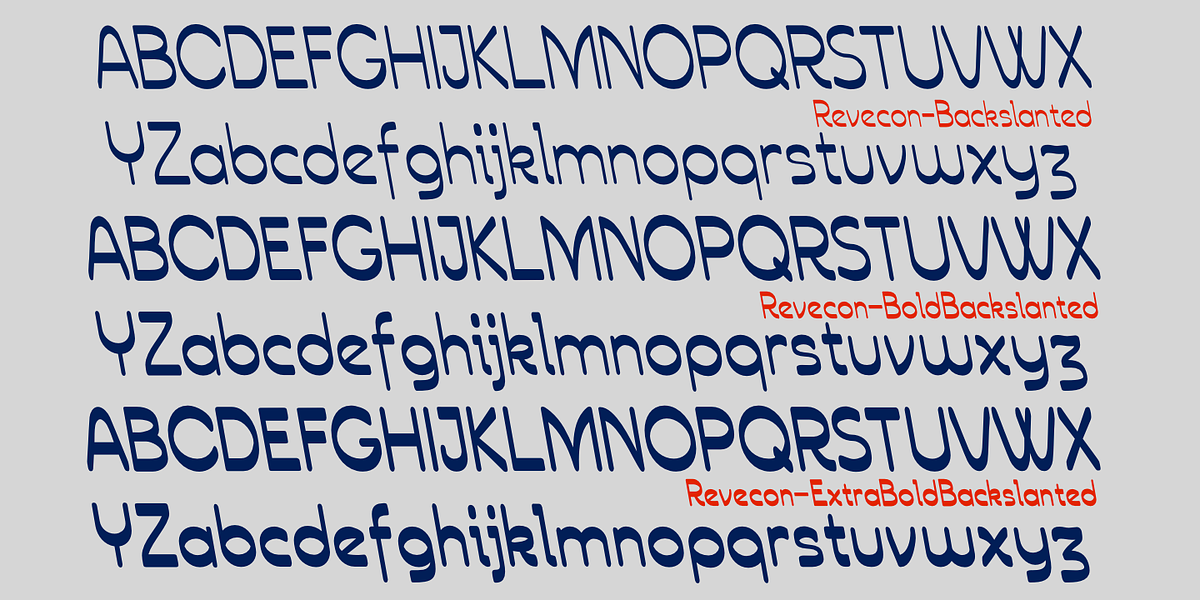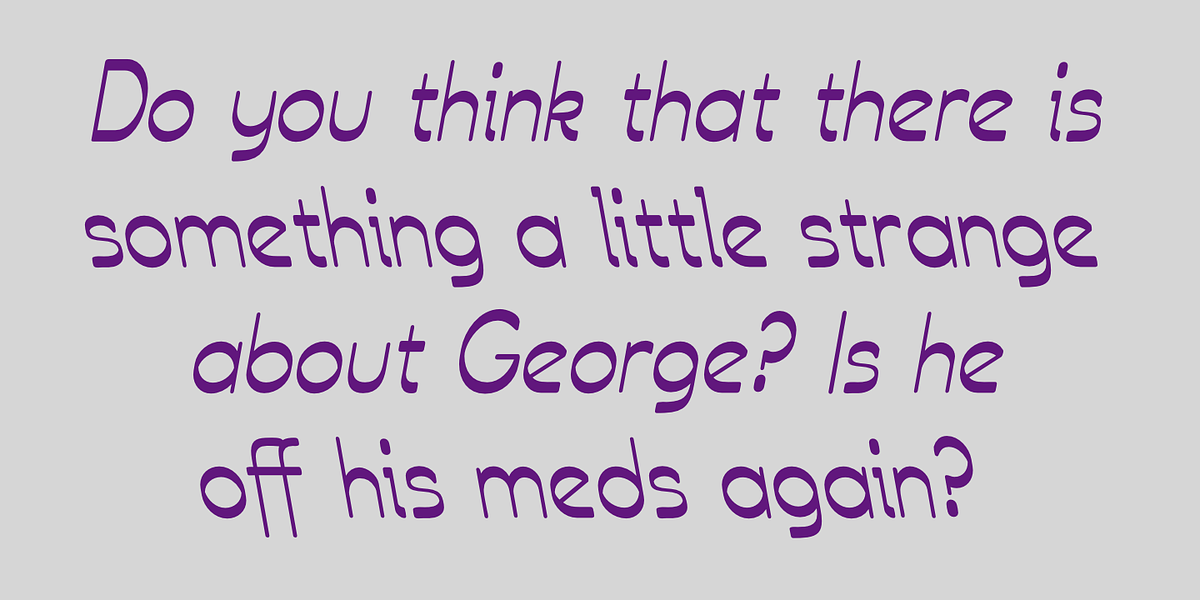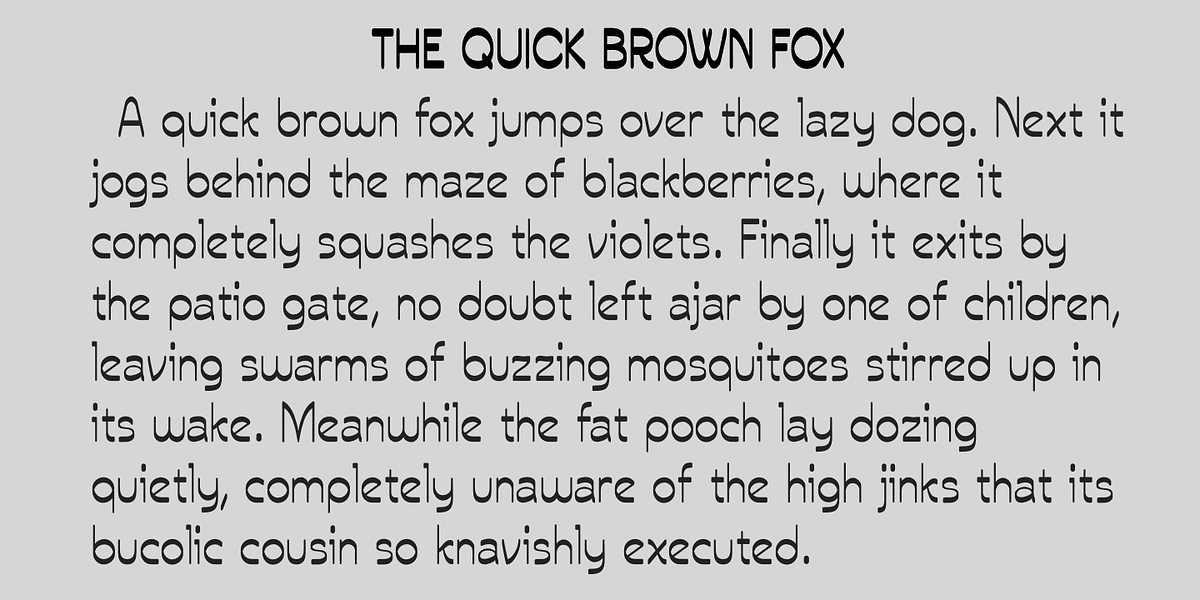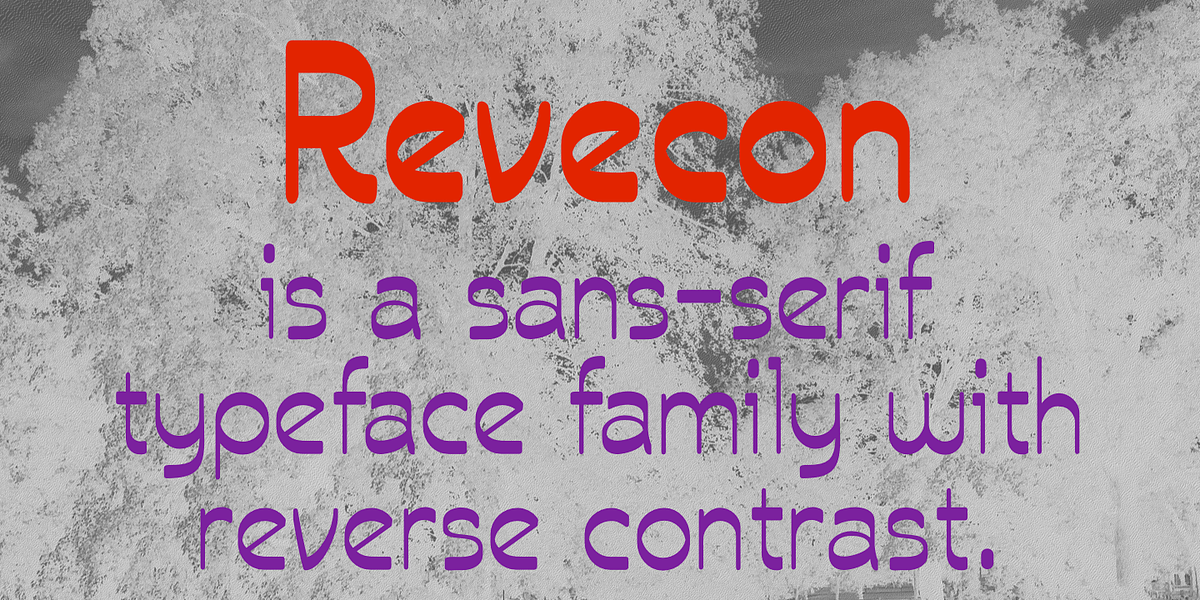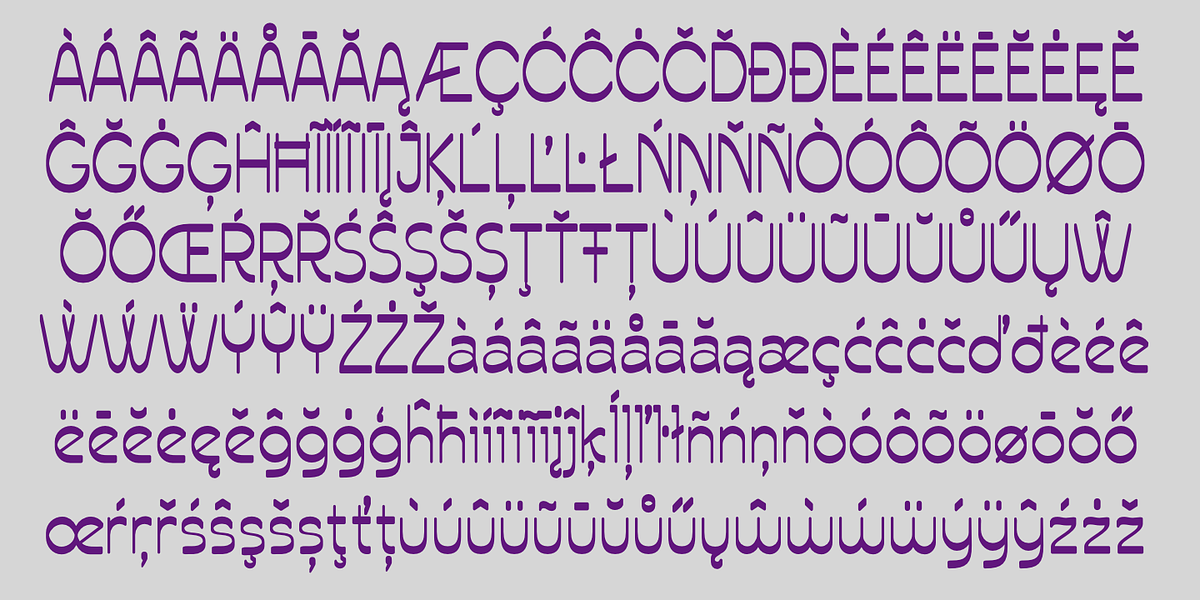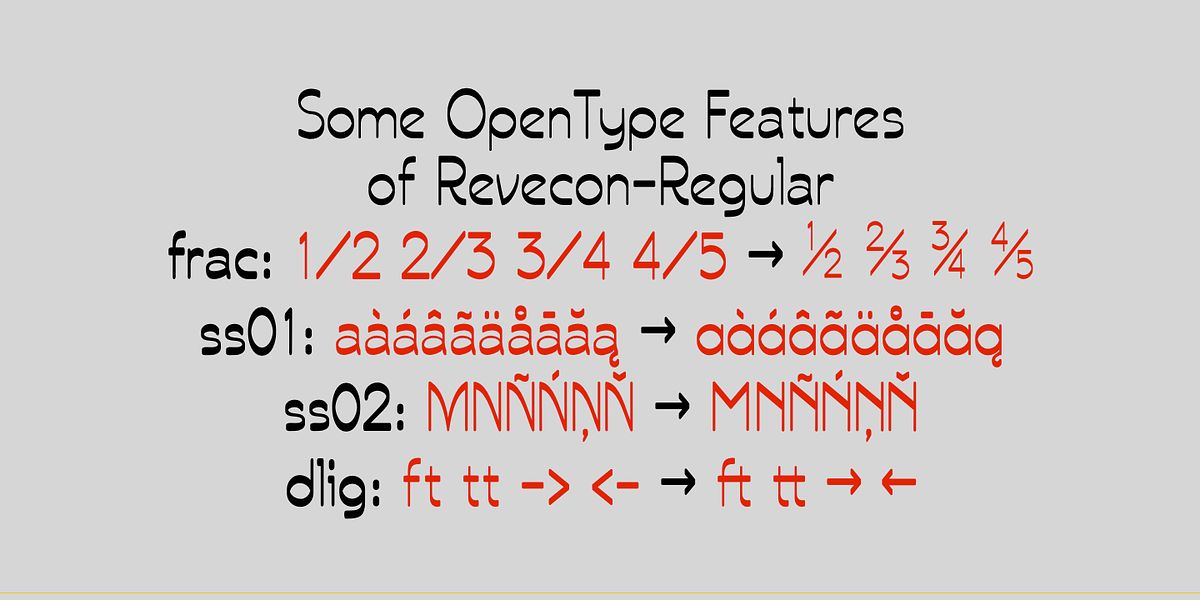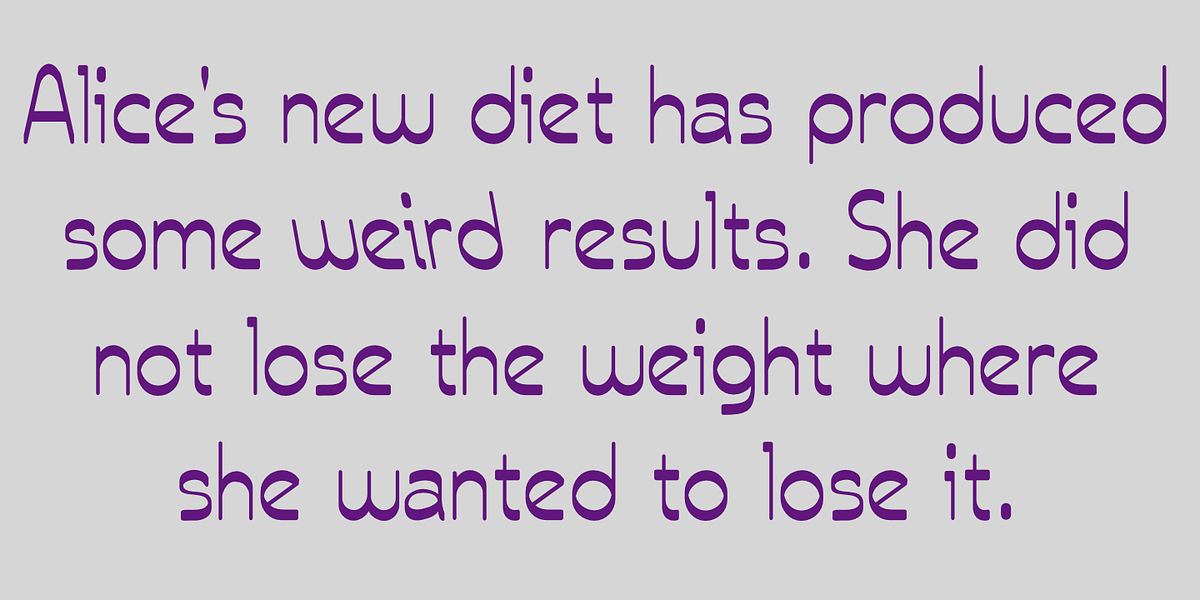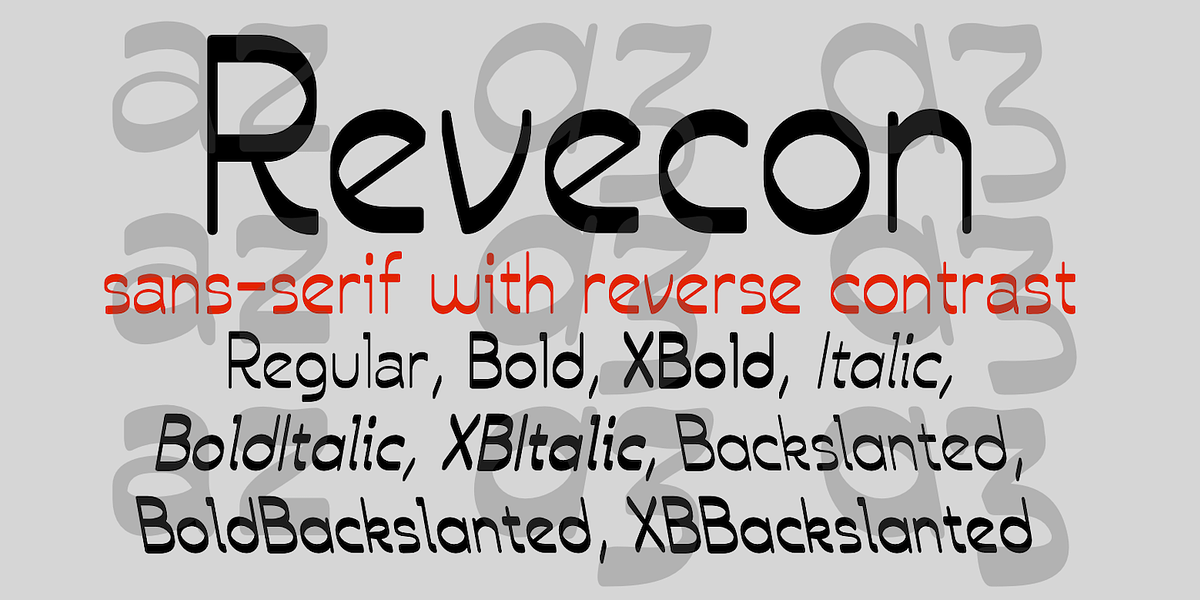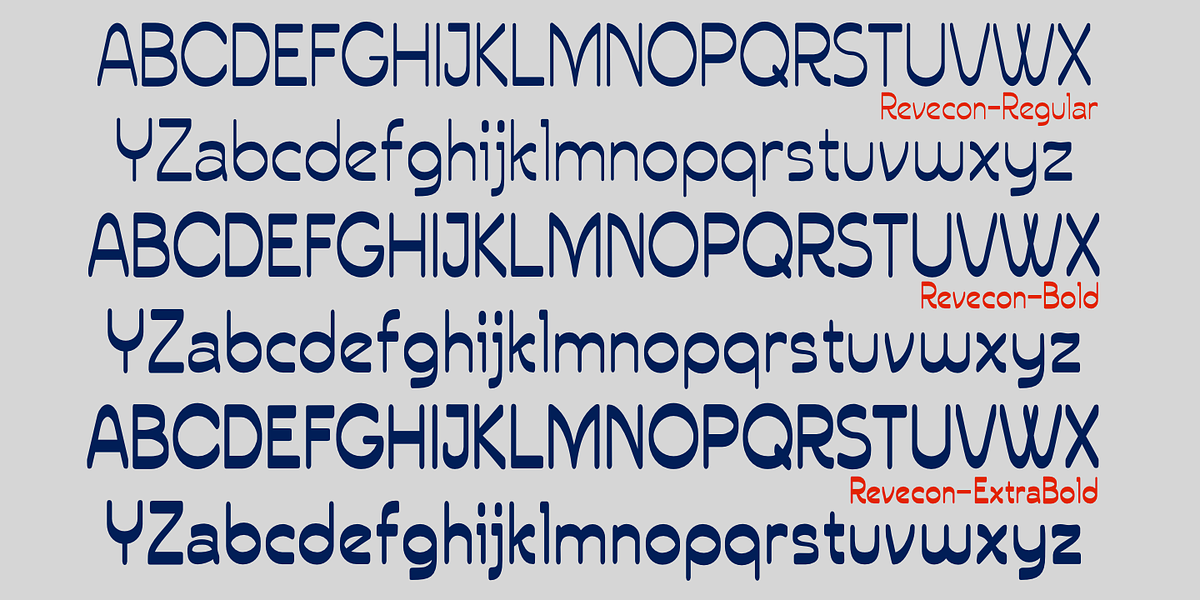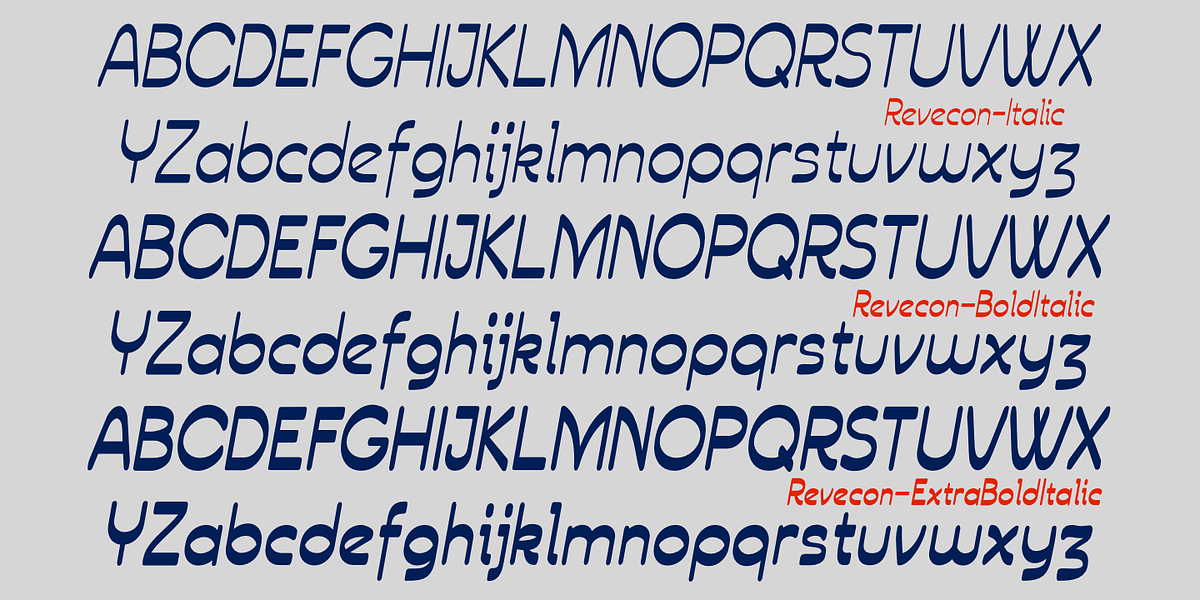
Revecon
Revecon is a geometric sans-serif typeface with the unusual characteristic of reverse contrast. This means that the strokes are thick where they would normally be thin, and vice versa. This design feature harkens back to 19th century serif fonts used for advertising. While legible, Revecon's distinct look makes it more suitable for display purposes like headlines or short blocks of text in advertising and similar applications.